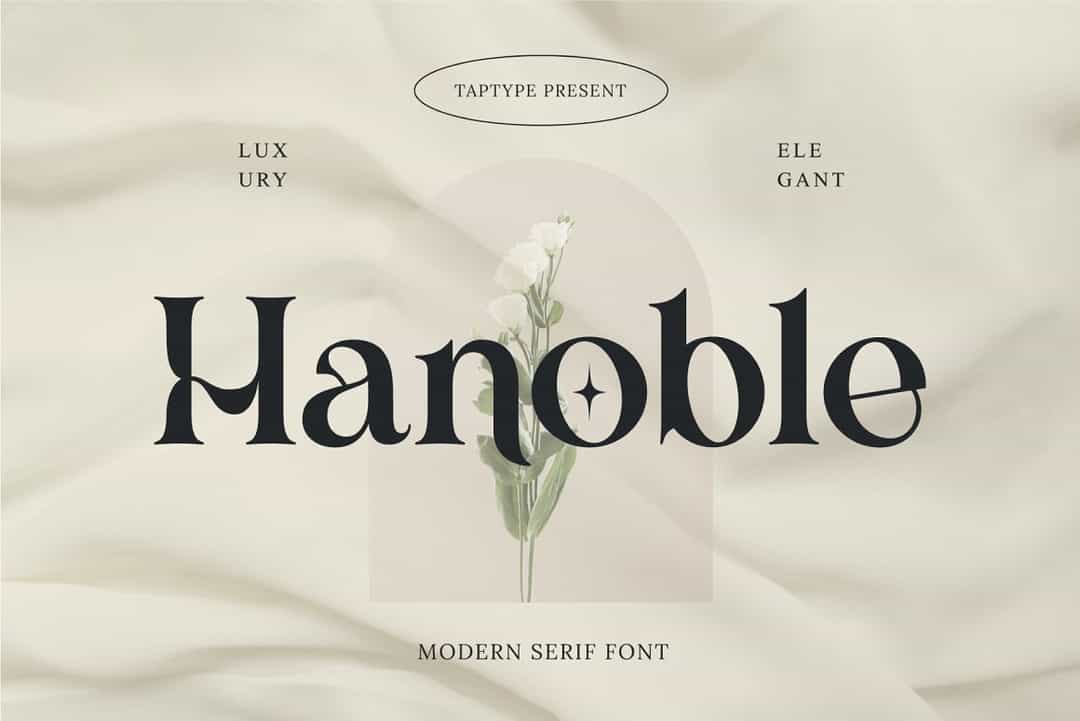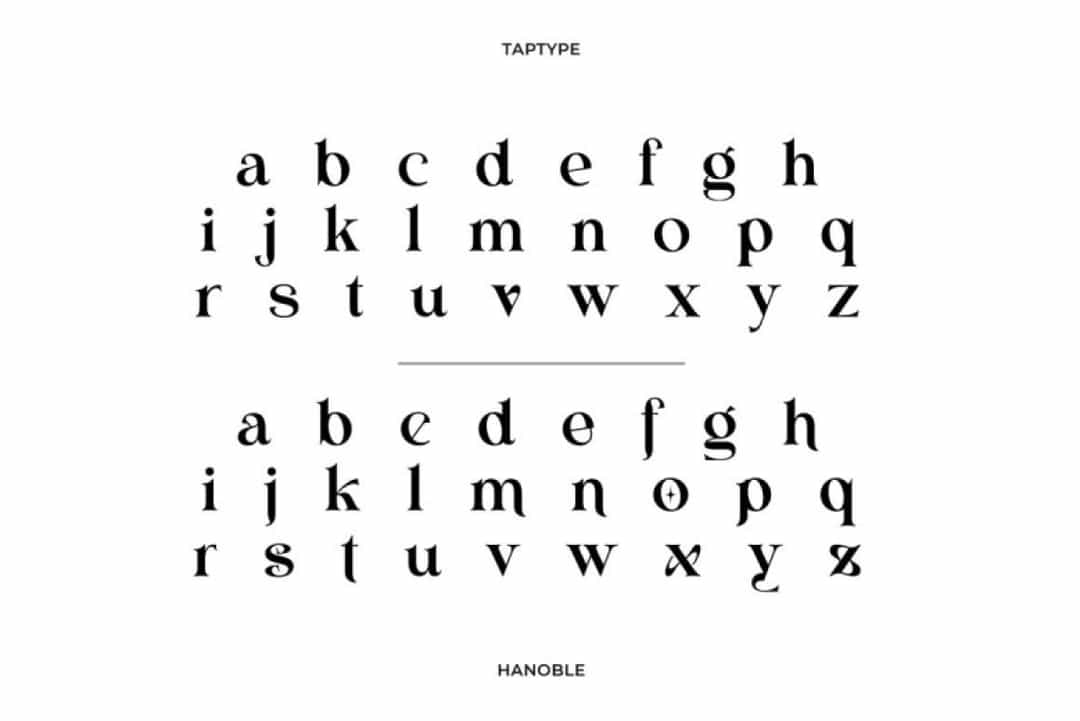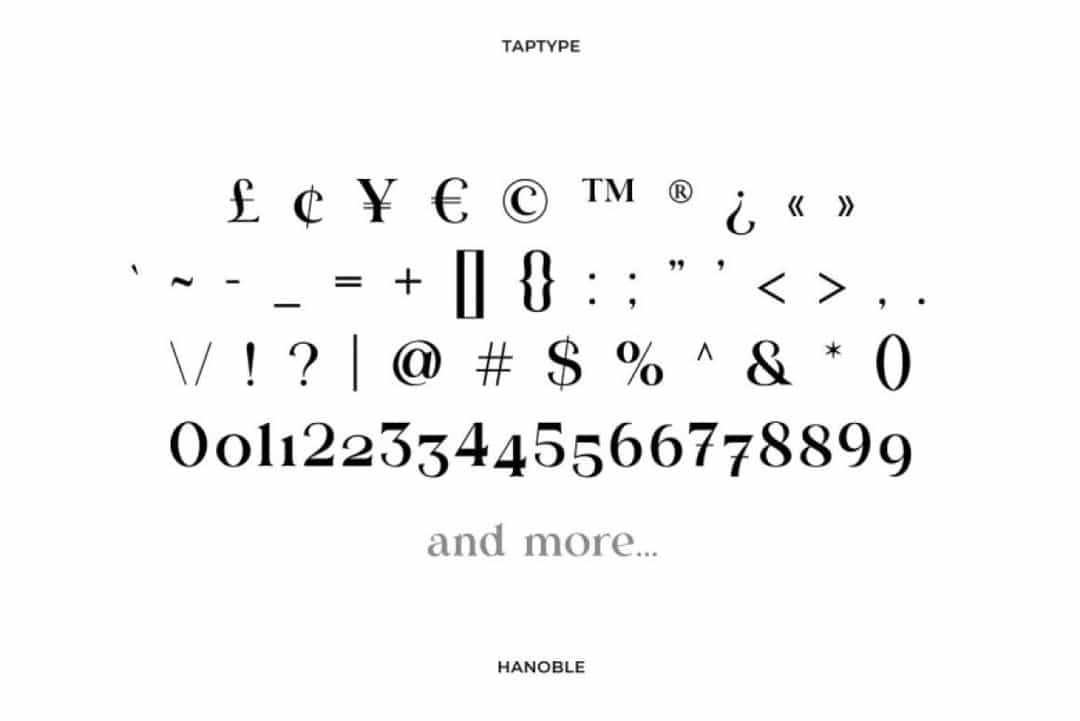
Hanoble is an elegant modern serif typeface featuring ligature-rich serifs. With its minimalist character, editing layouts is made easy for users. Perfect for wedding invitations, branding purposes or specific projects!